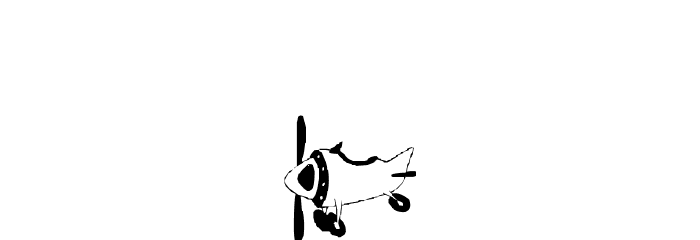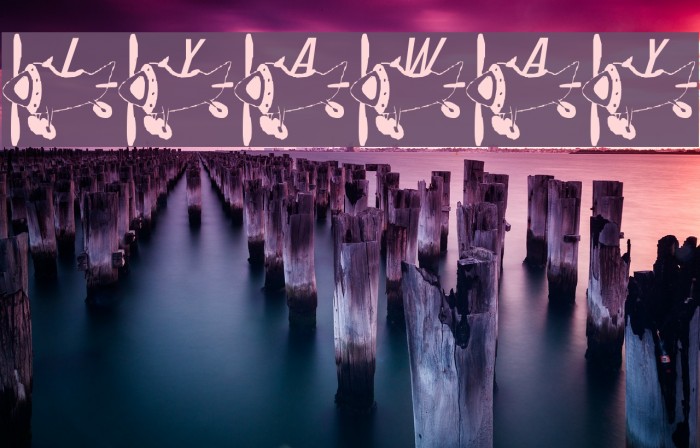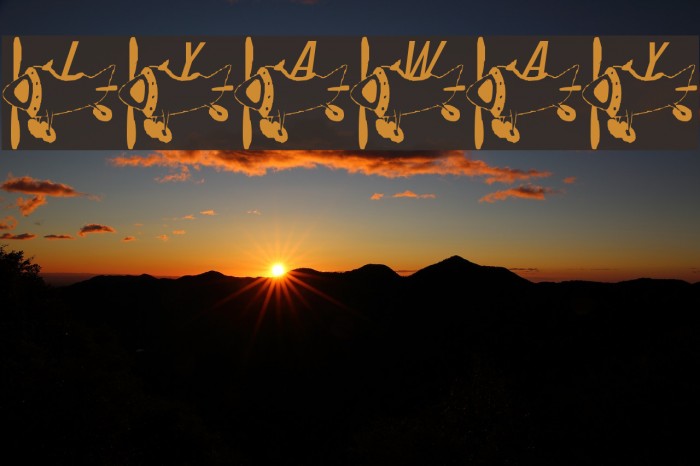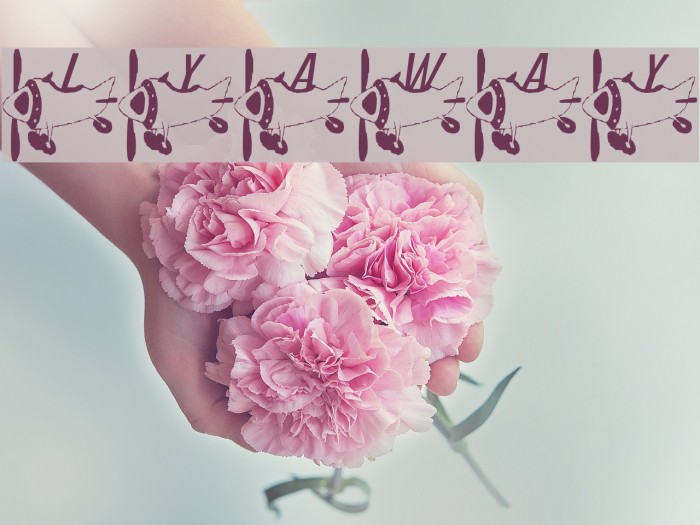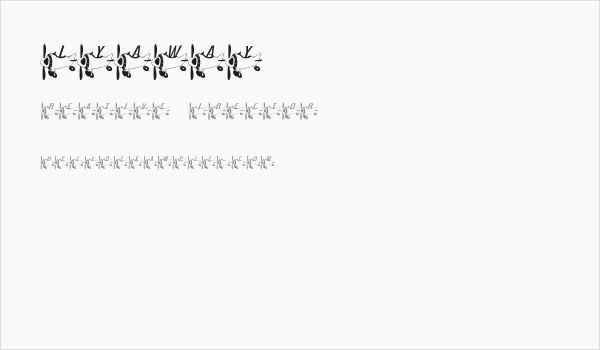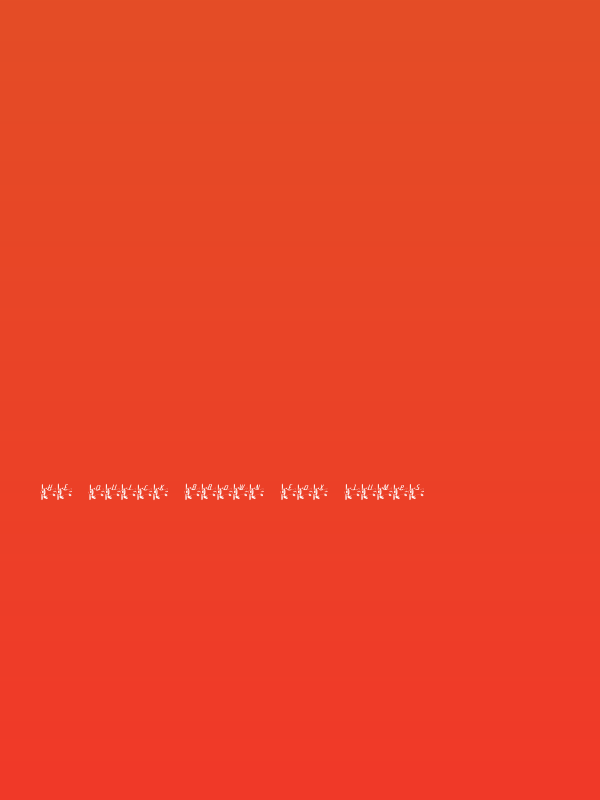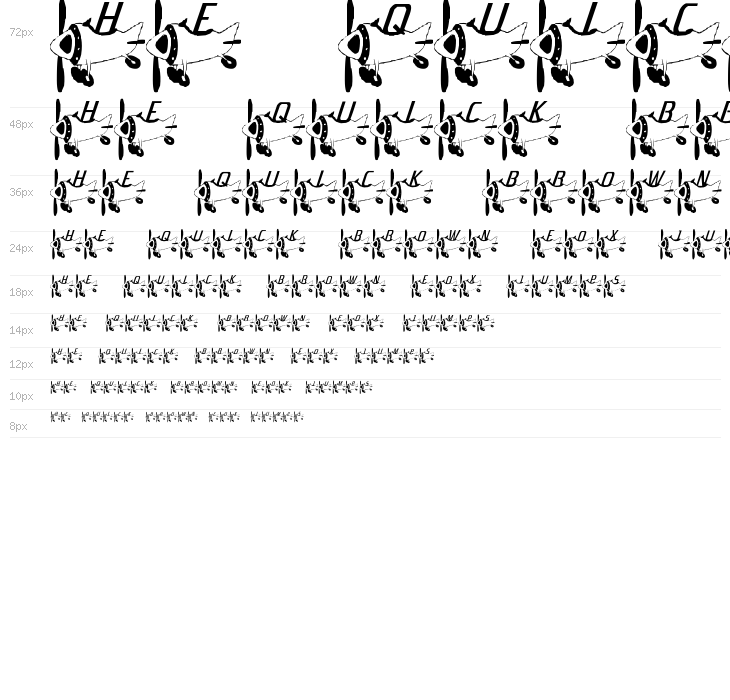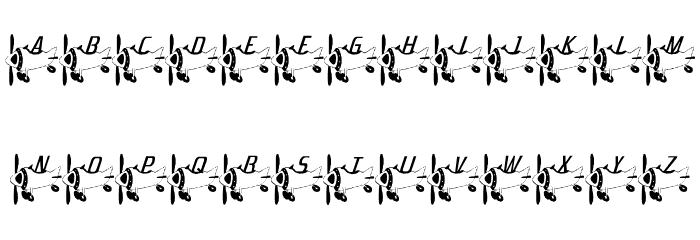
Flyaway Font
Flyaway Description
This playful and whimsical font features each letter integrated into a charming airplane design, creating a unique and imaginative look. The letters are crafted to appear as if they are part of the airplane's structure, with propellers and wings adding to the aviation theme. The font maintains a consistent style across both uppercase and lowercase letters, as well as numbers and special characters. Its decorative nature makes it ideal for projects that require a touch of creativity and fun. The overall design is cohesive, with each character seamlessly blending into the airplane motif, making it perfect for children's materials or aviation-themed projects.
| Overall Style | Whimsical, Playful |
| Use Case | Logos, Posters, Children's materials |
| Proposed Projects | Ideal for children's books, aviation-themed events, playful posters, and educational materials. |
| Author | Dingfontbats |